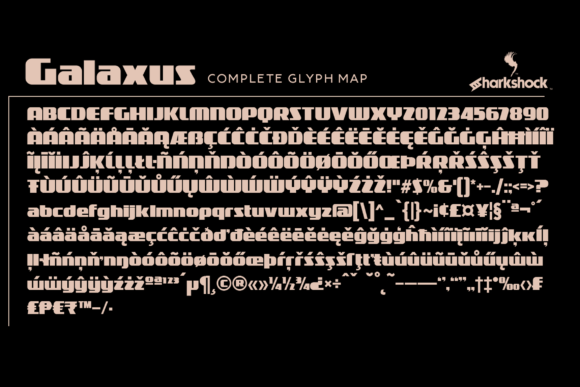
Introduction to Galaxus Font
Have you ever been stuck on a design project, staring blankly at a blank canvas, desperately searching for the perfect font to bring your vision to life? That’s where the Galaxus Font comes in – a game-changing, high-quality design resource that’s about to revolutionize the way you approach your creative project.
With its edgy display style and sleek aesthetic, the Galaxus Font is a valuable addition to any designer’s toolkit. Whether you’re working on a logo, sports apparel, or a video game, this font is sure to make a statement. Its unique blend of thick and thin lines, combined with its transparent background, makes it a standout choice for any creative project.
Key Features of Galaxus Font
- Galaxus Font offers a transparent background, allowing for seamless integration into various design elements.
- Features a high-resolution design, suitable for printing and digital applications at 300 DPI.
- Unique, futuristic design aesthetic makes it an ideal choice for science fiction and technology-themed projects.
- Includes a range of font sizes and styles, allowing for customization and flexibility in creative projects.
Honest Review: Galaxus Font
As a designer, I’m always on the lookout for high-quality design resources to elevate my creative projects. Recently, I stumbled upon the Galaxus Font, and I’m excited to share my honest review.
- ✨ High-quality typography: The Galaxus Font features crisp, clean lines and a modern aesthetic that’s perfect for contemporary designs.
- ✨ Transparent background: The font’s transparent background makes it easy to layer and blend with other design elements, adding depth and visual interest to your work.
- ⚠️ Limited language support: The Galaxus Font only includes Latin characters, which may be a concern for designers working on multilingual projects.
- ⚠️ Limited font weights: The font family includes only a few weights, which may not provide enough versatility for designers who need to create bold or italic text.
Overall, the Galaxus Font is a solid choice for designers working on creative projects that require a modern, high-quality typography. While it has some limitations, its free download and transparent background make it an excellent resource for designers on a budget or working on personal projects.
Galaxus Font
The Galaxus Font is a versatile and high-quality design resource that can elevate your creative project to the next level. With its transparent background, this font is perfect for designers who want to add a touch of sophistication to their work.
The Galaxus Font is perfect for designers who want to create a unique and eye-catching visual identity for their brand or project. It’s also great for use in presentations, documents, and social media graphics.
To get the most out of the Galaxus Font, experiment with different font sizes, colors, and combinations. You can also use the font in conjunction with other design elements, such as images and graphics, to create a cohesive and visually appealing design.